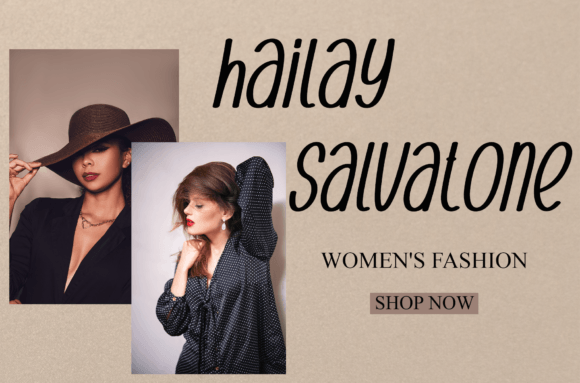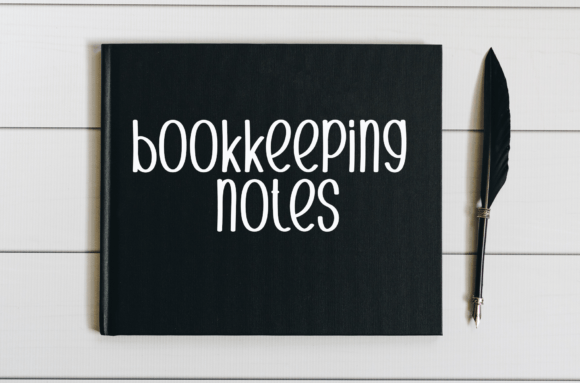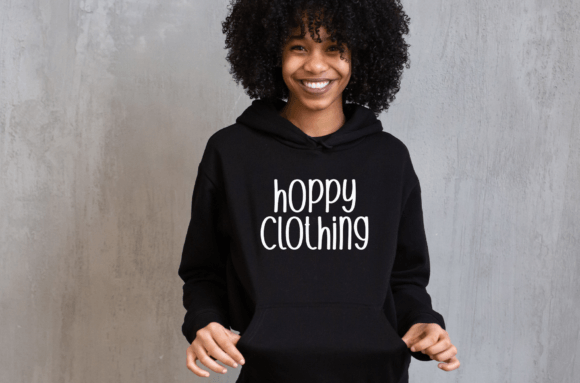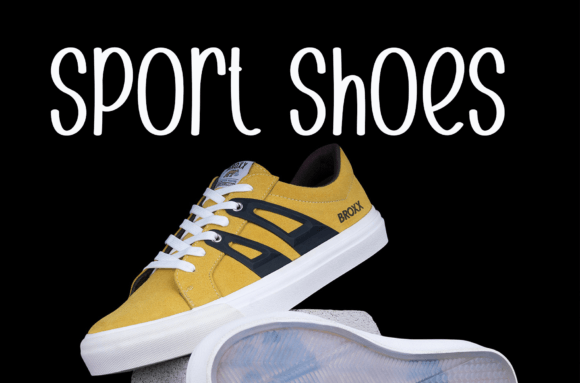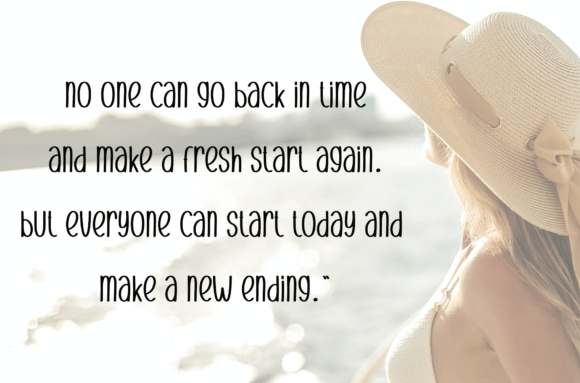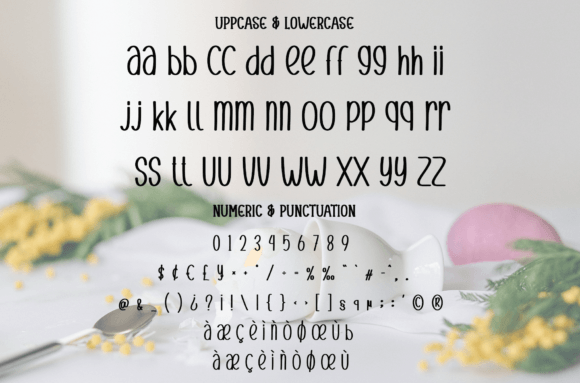
The Easter Season Font: A Sweet and Friendly Addition to Your Design Arsenal
I’ll never forget the time I was working on a wedding invitation project, and my client asked for a font that was “fun, yet elegant.” I scoured the internet, trying out font after font, but nothing seemed quite right. That was until I stumbled upon the Easter Season font. With its sweet and friendly handwritten style, it was love at first sight! In this article, I’ll share my experience with this beautiful font, its features, and how to make the most of it in your designs.
I’ve had the pleasure of working with the Easter Season font on several projects, and here’s what I think:
- ✨ It’s incredibly versatile and can be used for a wide range of projects, from wedding invitations to social media graphics.
- ✅ The font is fresh, neat, and has a lovely handwritten feel that’s sure to add a personal touch to your designs.
- ✅ It’s easy to read, even at smaller font sizes, making it perfect for body text or captions.
Now, I’m not going to sugarcoat it – there are a few quirks to be aware of:
- 🤔 The font can be a bit overused, especially during the Easter season (hence the name!). Use it sparingly to avoid clichés.
- ⚠️ Some of the characters, like the uppercase letters, can be a bit inconsistent in terms of size and style. But honestly, it’s a minor quibble.
The Story Behind Easter Season Font
The Easter Season font was designed by a talented typographer who wanted to create a font that captured the sweetness and playfulness of the Easter season. Inspired by traditional Easter cards and decorations, the font features a unique blend of handwritten and printed elements. The result is a font that’s both fun and elegant – perfect for a wide range of design projects.
| Is the Easter Season font suitable for body text? | Yes, it’s easy to read and can be used for body text, but keep in mind it’s a decorative font and might not be the best choice for very long texts. |